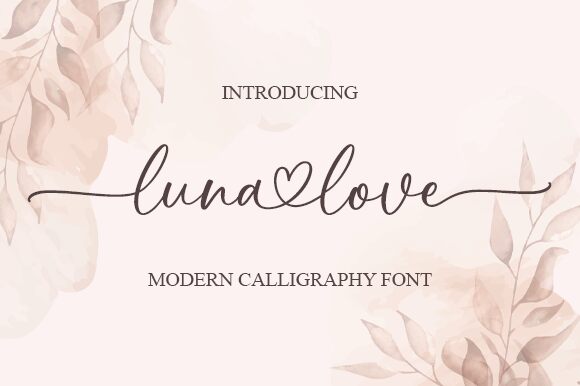
Luna Love by Nirmala Creative is a breathtaking modern calligraphy font that is perfect for adding elegance and sophistication to any project. Its semi-light weight creates an airy, delicate feel that's perfect for wedding invitations, feminine branding, and social media graphics. Luna Love's graceful curves and graceful strokes give it a playful yet refined aesthetic, making it ideal for anything from product packaging to website headers. Whether you're designing a logo or creating promotional materials, Luna Love is the perfect font for adding a touch of beauty and charm to your work.